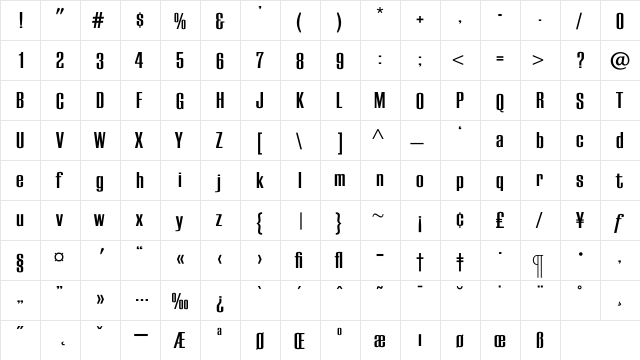
EuropaGrotesqueBold Regular
Design Context for EuropaGrotesqueBold Typeface
EuropaGrotesqueBold takes a measured approach to typography — its balanced proportions and neutral character make it a reliable workhorse for both digital and print work. Its bold stroke weight gives it real presence on the page.